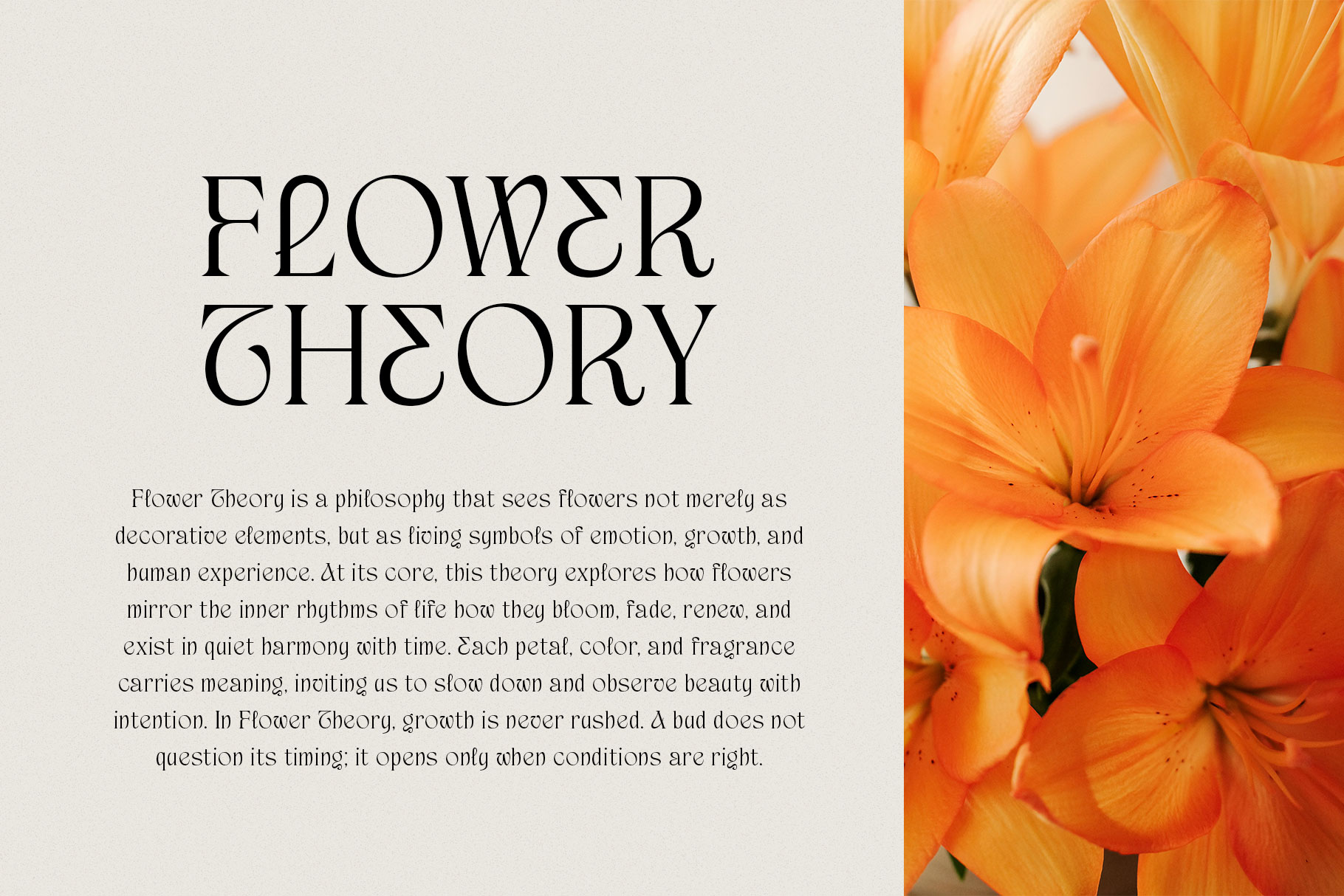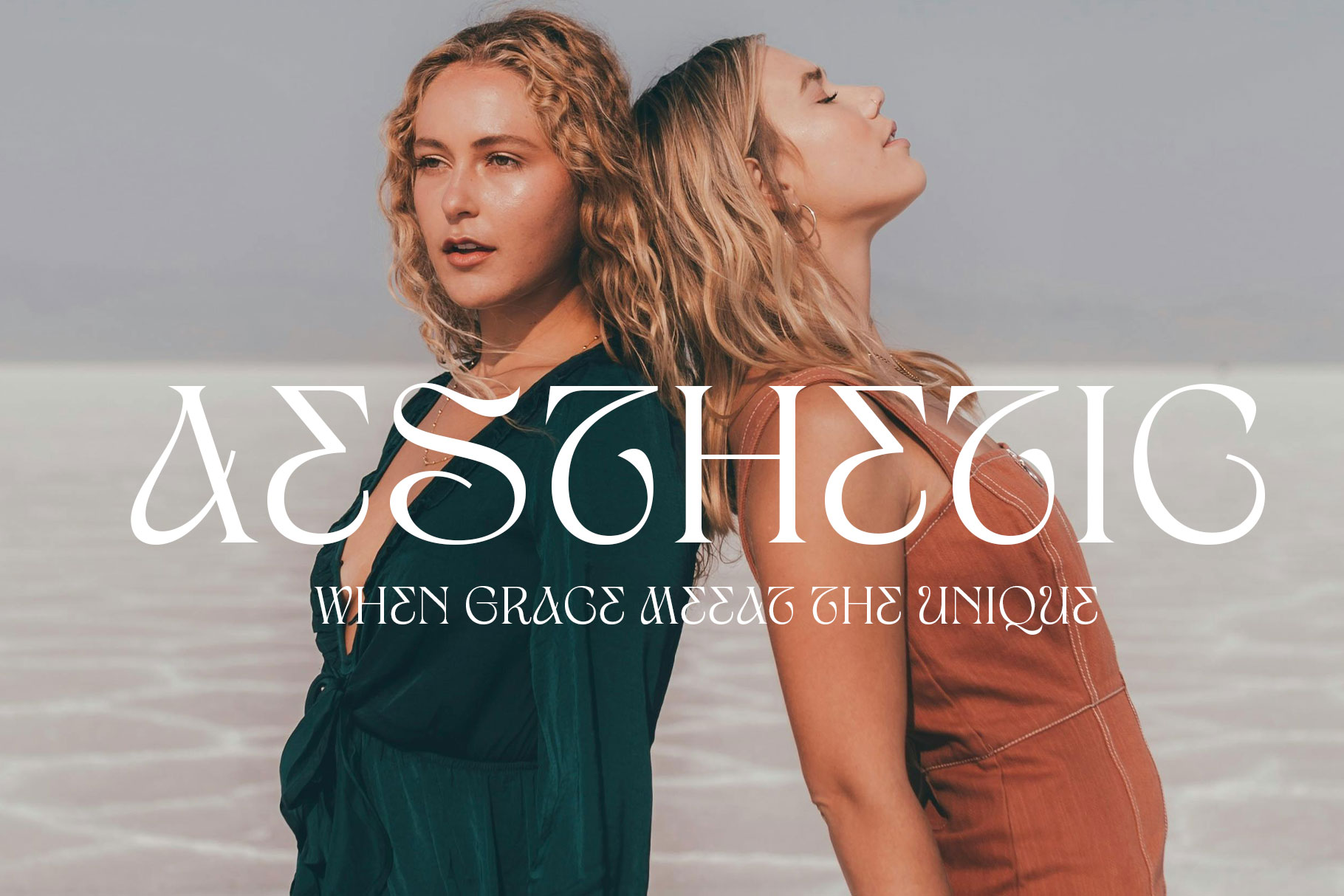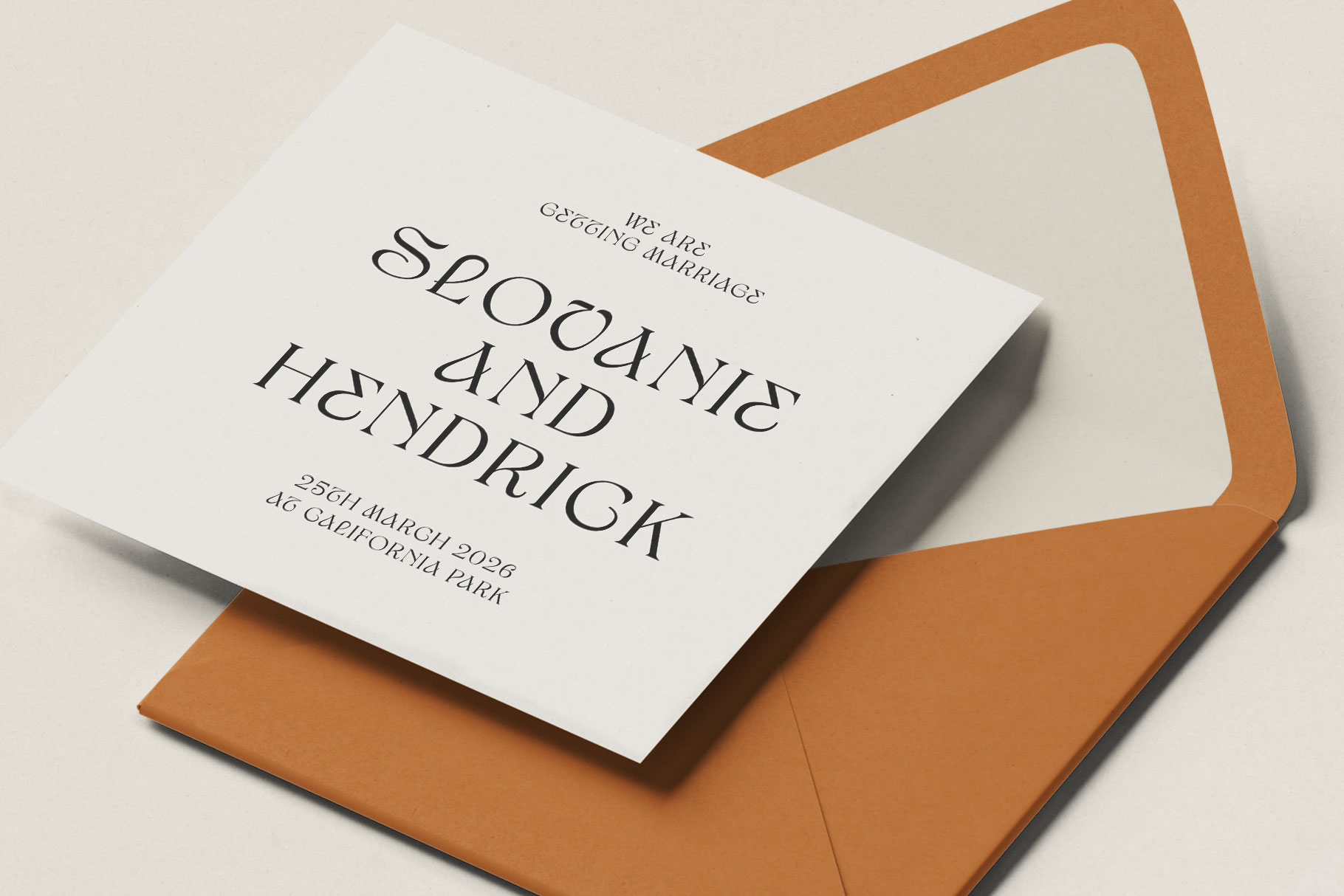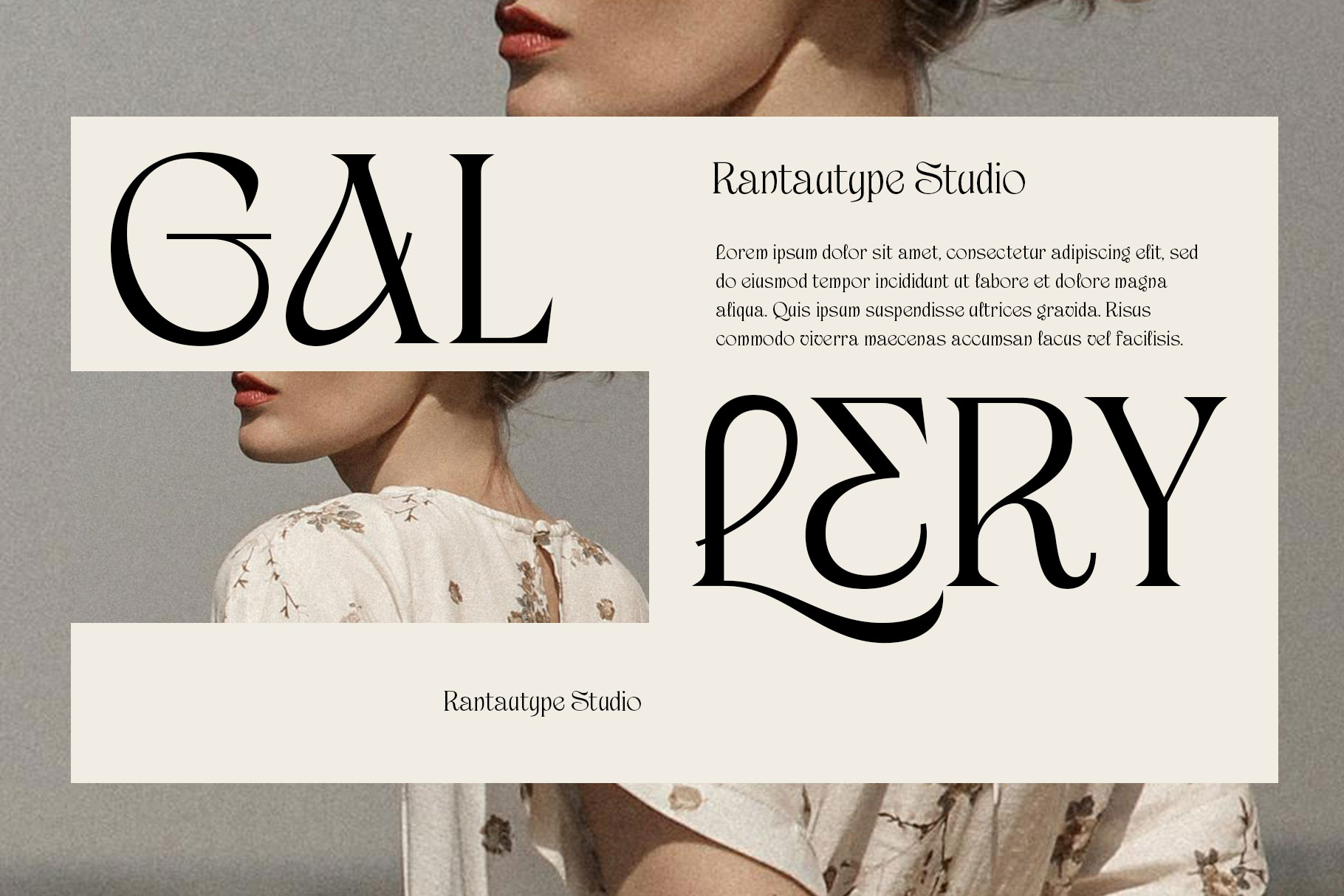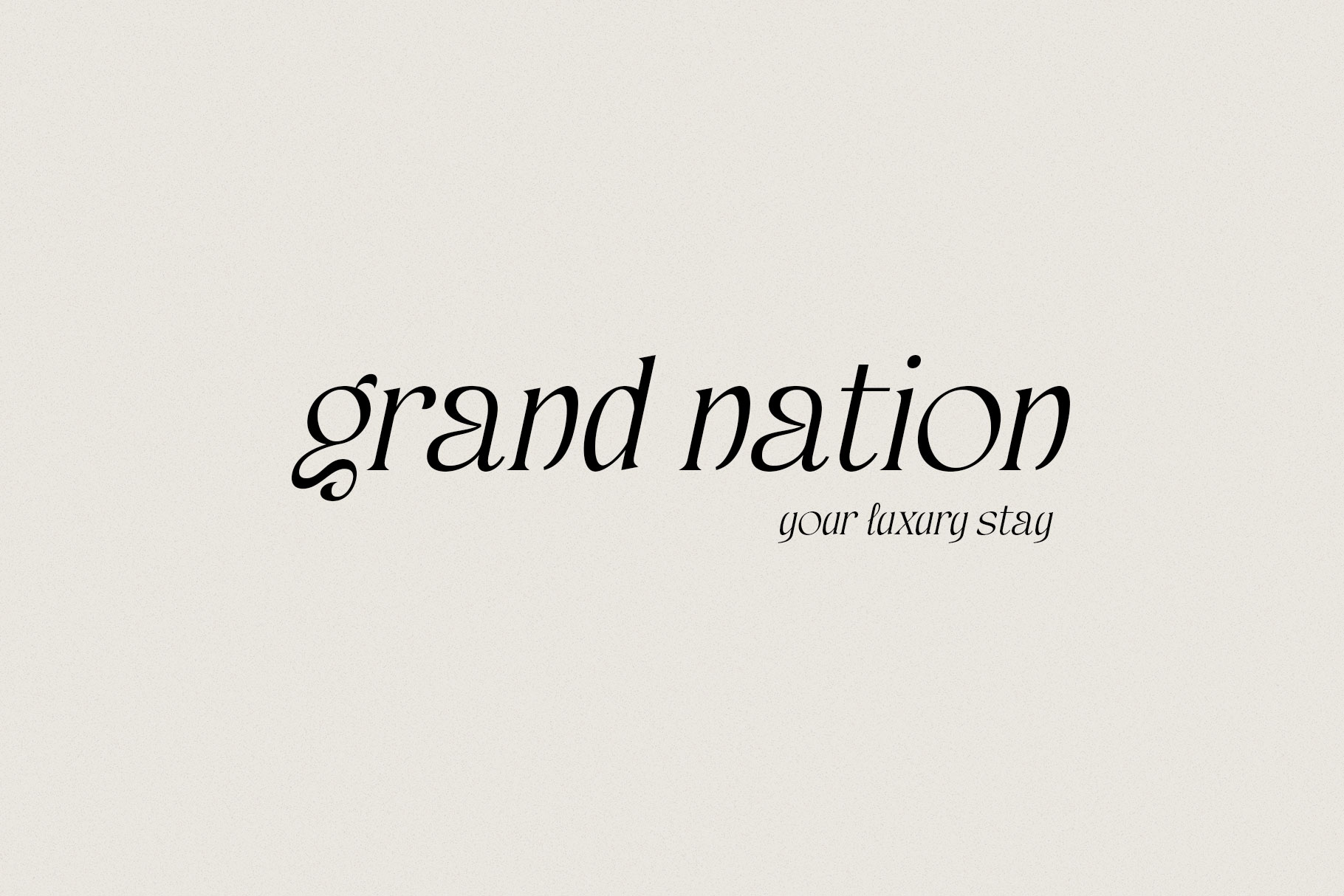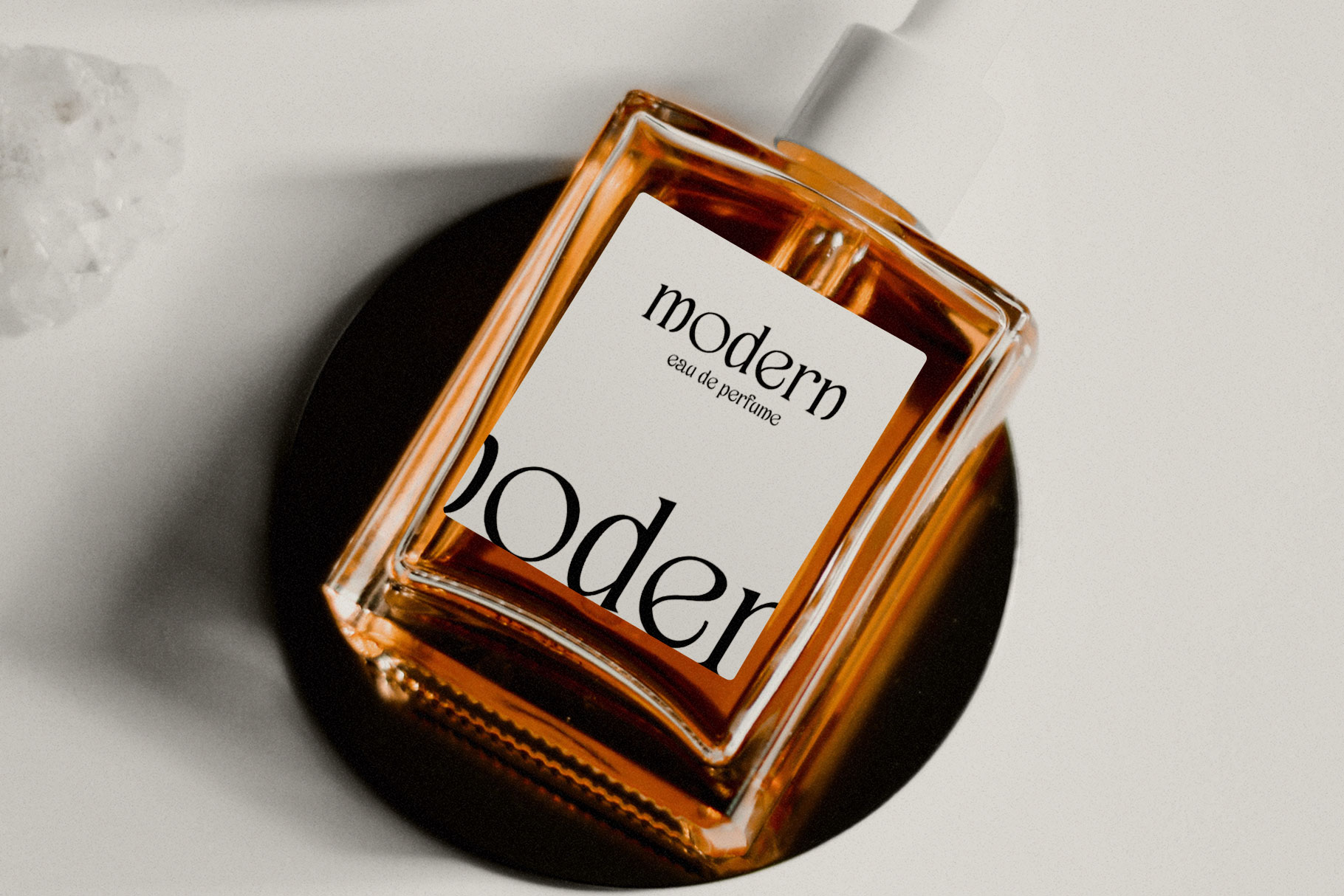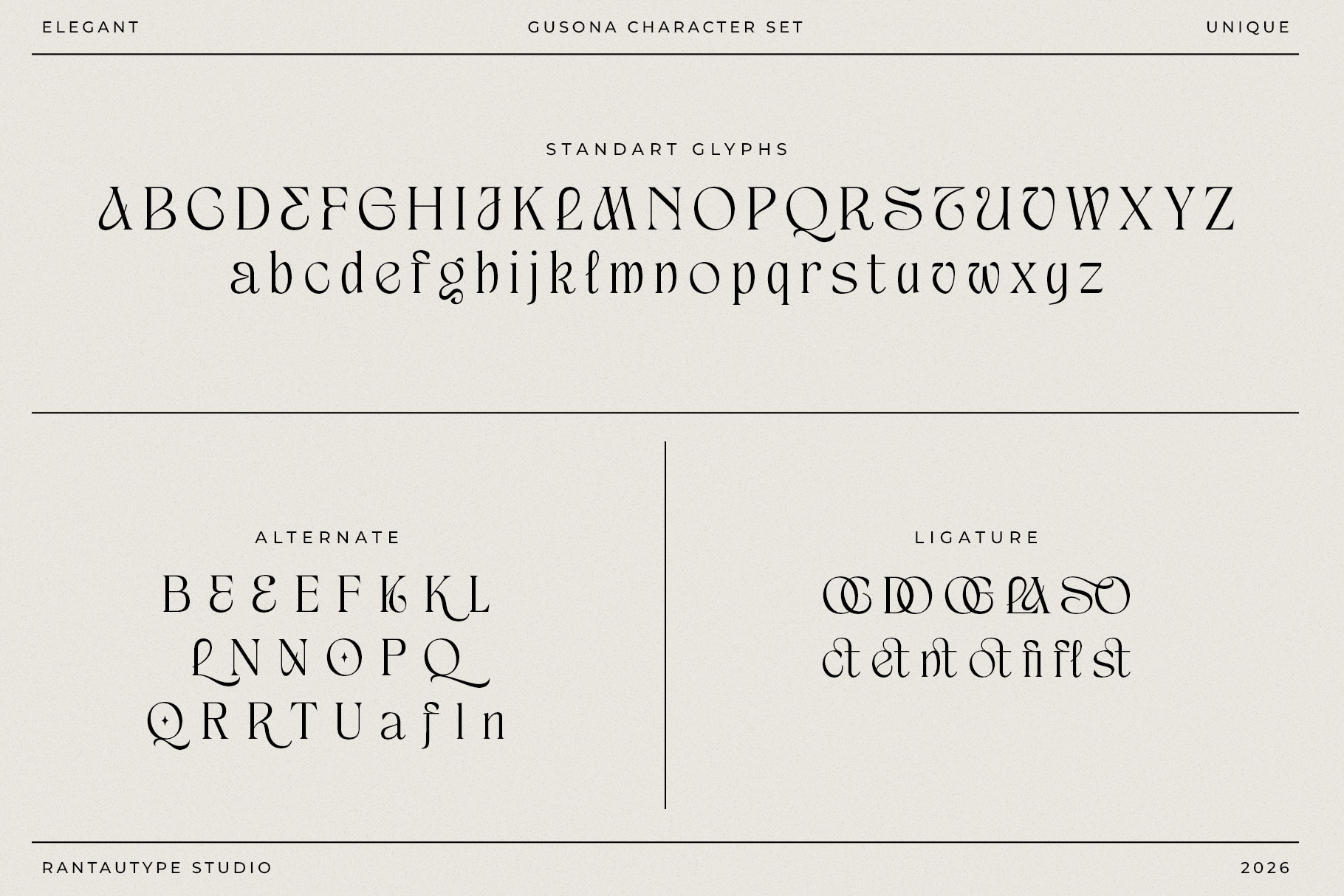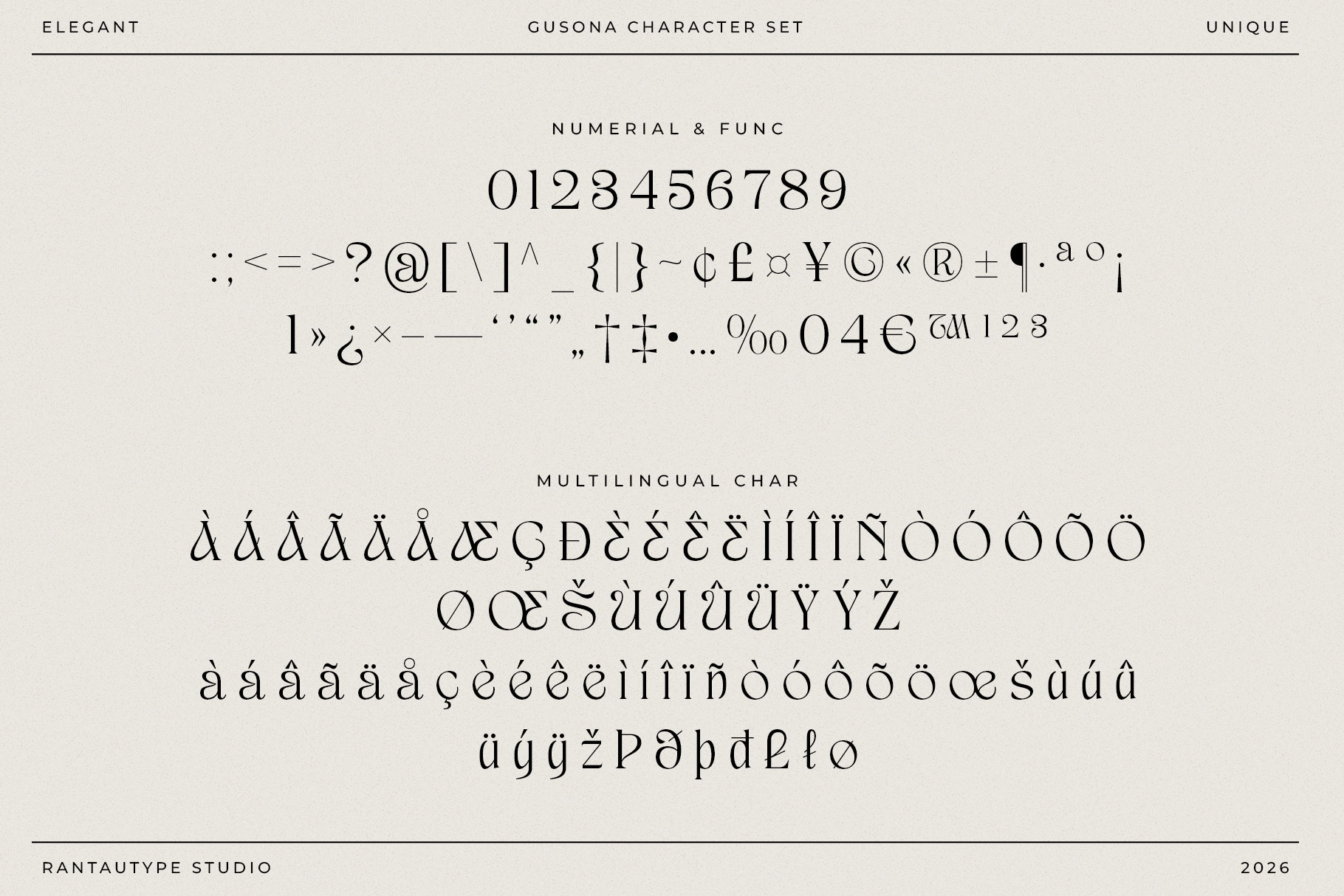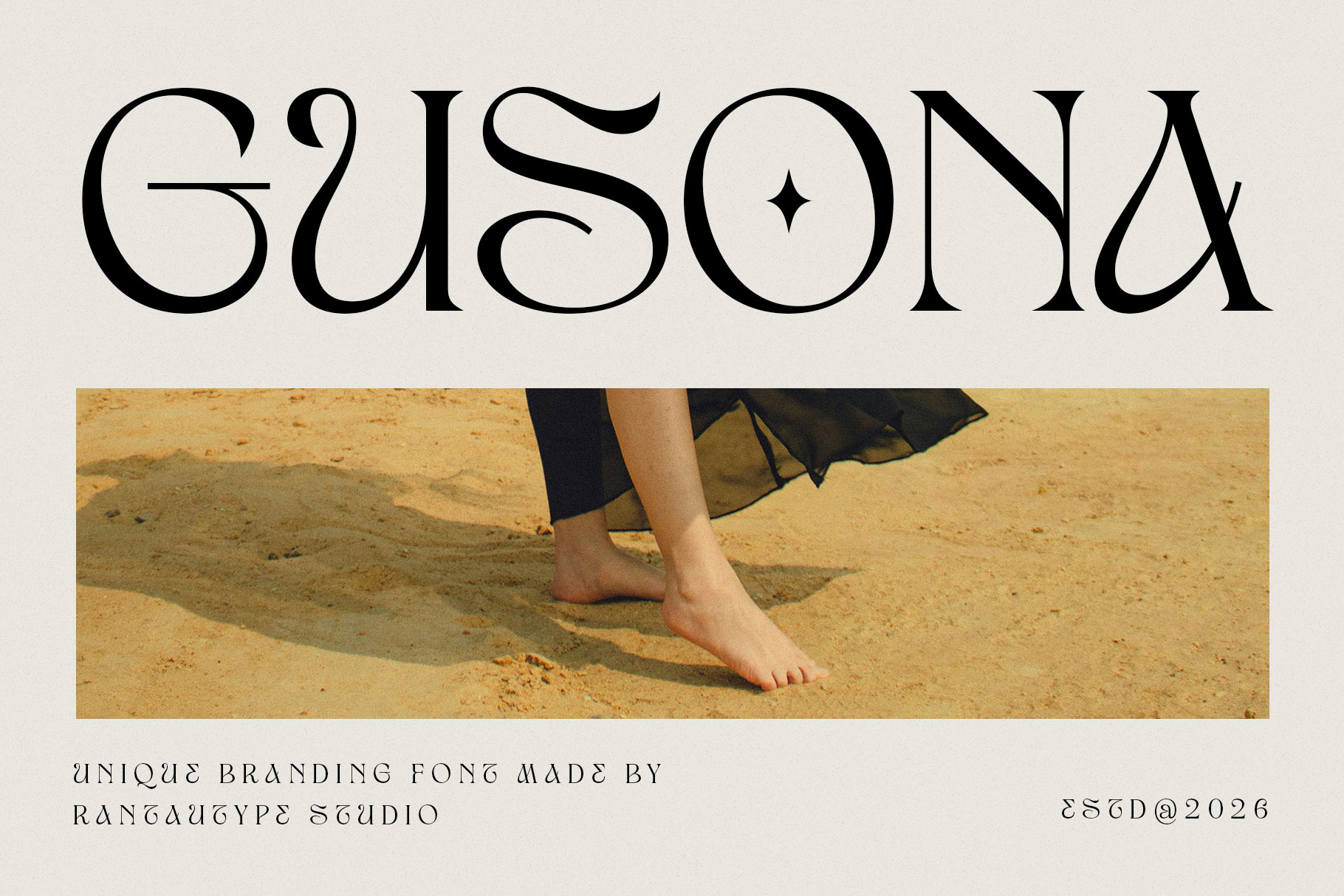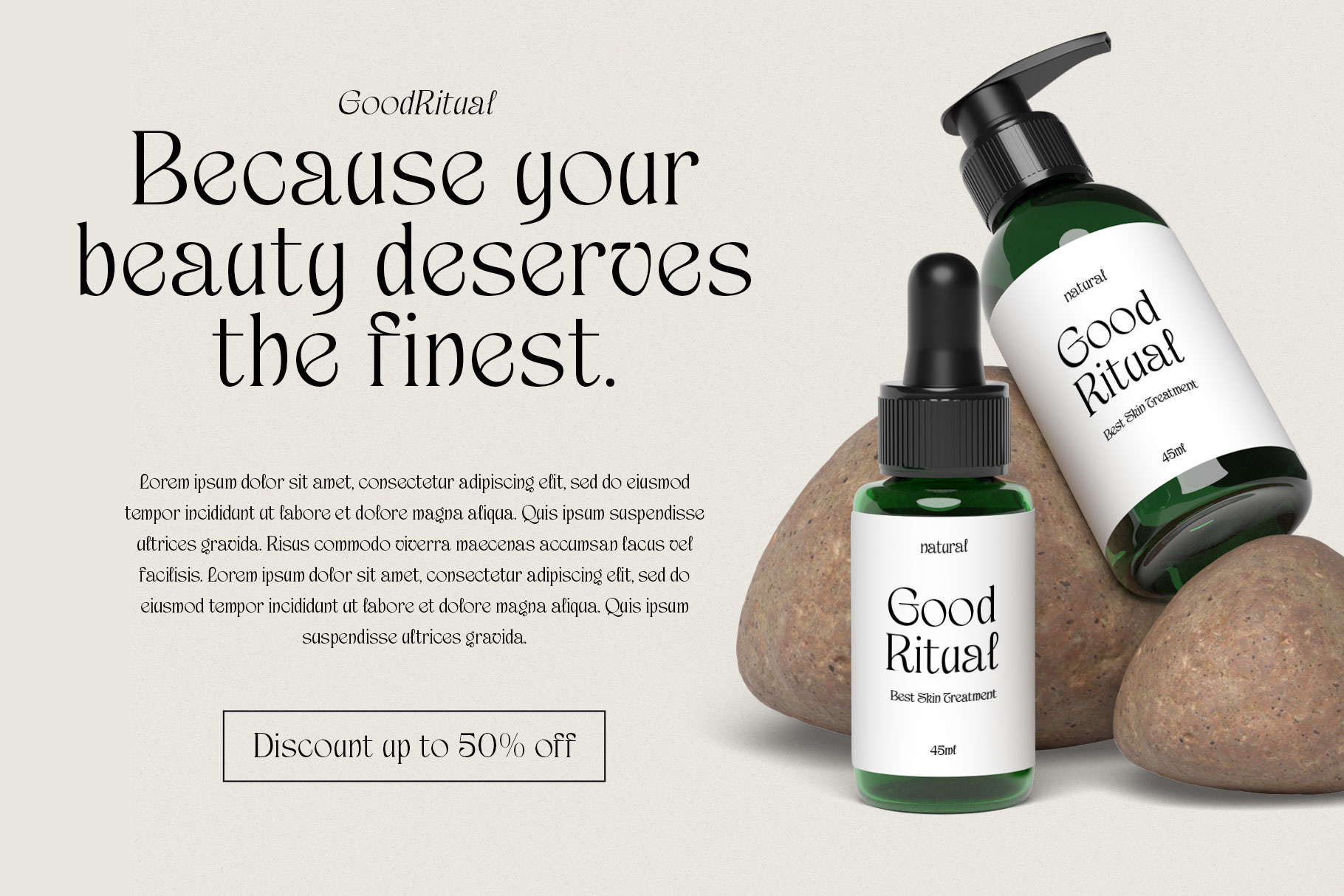
Gusona Unique Branding Font
Gusona is branding font with unique character. Gusona bring professional character to make your design stand out!! Gusona is a perfectly choice for any creative endeavor, creating, modern, lifestyle design such as logotype, title, cover, branding, invitations, wedding designs, display and magazine, social media posts, advertisements, printed quotes, product packaging, corporate brand, product designs, labels, photography, watermarks, special events and any other project with modern touch.